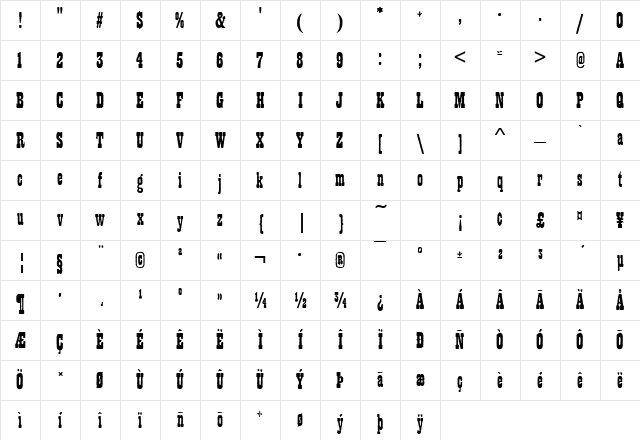
PlaybillAntD Regular
Design Context for PlaybillAntD
PlaybillAntD is a composed and adaptable typeface that performs quietly and consistently across a wide range of design contexts.